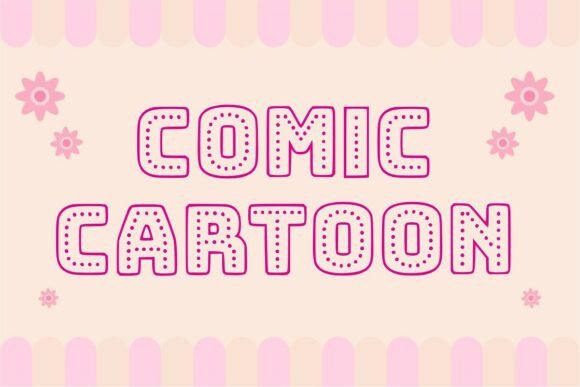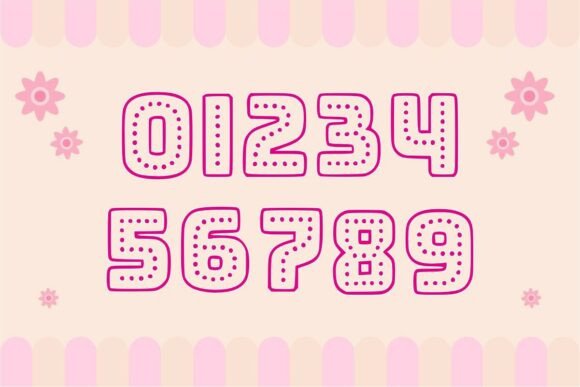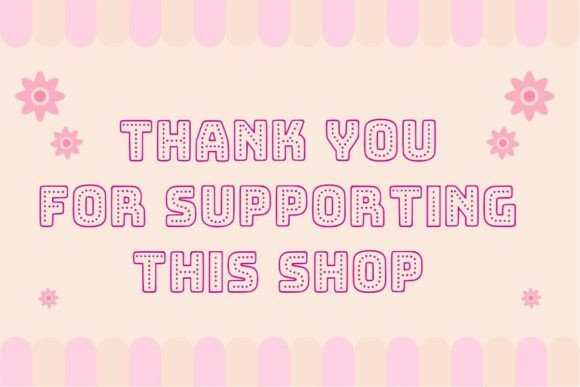
The Sweet Taste of Design
Remember the thrill of rummaging through your grandma’s old trunk, uncovering a stash of vintage stickers and colorful crayons? It’s those carefree moments that spark our creativity and fuel our imagination. For designers looking to tap into that youthful energy, the perfect tool is within reach: the delightful Donuts Donky Font.
This charming font exudes a playful spirit, making it an ideal choice for kid-focused designs. With two distinctive styles – Dotted and Solid – designers can add a unique touch to their projects, from vibrant t-shirts to cheerful mugs. The flexibility of Donuts Donky Font allows designers to infuse their work with the joyous spirit of childhood, creating memorable and fun designs that stand out from the crowd.
Donuts Donky Font Key Features
- Character Set: The font includes a comprehensive set of characters, including uppercase and lowercase letters, numbers, punctuation, and special characters, as well as a range of symbols and icons.
- Unique Characteristics: The font features a unique, hand-drawn design with a playful and whimsical feel, making it perfect for use in creative and artistic projects.
Donuts Donky Font Review
Donuts Donky Font is a fun and quirky font that can add a playful touch to any design project. ✨ I appreciate the unique letterforms and the bold, colorful style, which makes it perfect for eye-catching headings and titles. The font is also highly customizable, with various OpenType features that allow you to adjust the font’s behavior to suit your needs.
One of the standout features of Donuts Donky Font is its wide range of weights, from light to bold, which gives designers the flexibility to create a cohesive visual identity. ✨ The font is also well-suited for digital applications, with clear and readable typography even at small font sizes.
- ⚠️ The font may be too playful for more formal or professional designs, where a more subdued tone is required.
- ⚠️ Some users may find the font’s irregular letterforms distracting or difficult to read, especially at larger font sizes.
- ⚠️ The font’s OpenType features can be overwhelming for users who are not familiar with advanced font technology.
Overall, Donuts Donky Font is a great addition to any designer’s toolkit. While it may not be suitable for every project, its unique style and customization options make it a valuable resource for designers looking to add some personality to their work.
The Donuts Donky Font is ideal for creative projects, such as:
– Marketing materials
– Blog posts and articles
– Infographics
– Branding and logo design
For the best results, pair the Donuts Donky Font with complementary colors and designs. Experiment with different font sizes and styles to create visual interest. Use the font in combination with images and graphics to add depth and texture to your design.